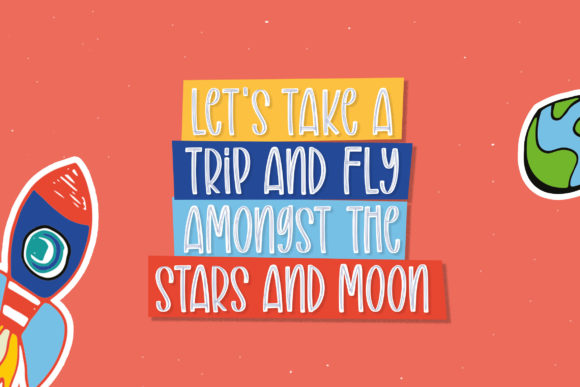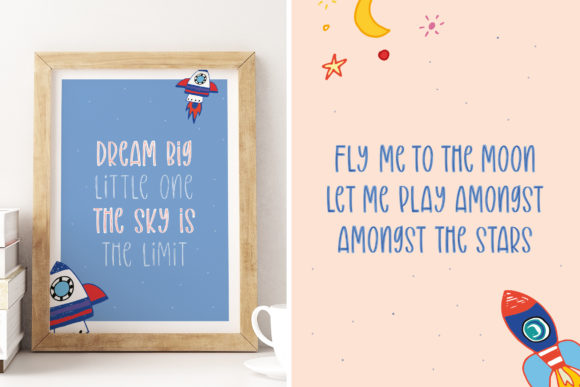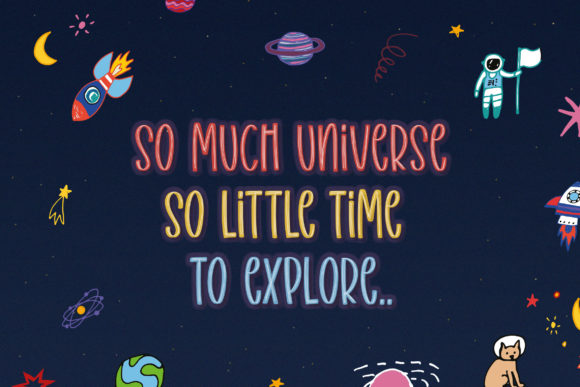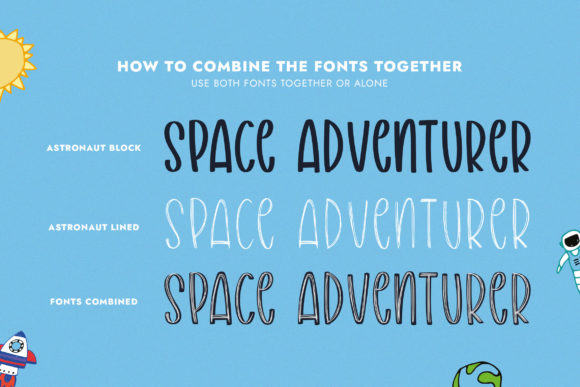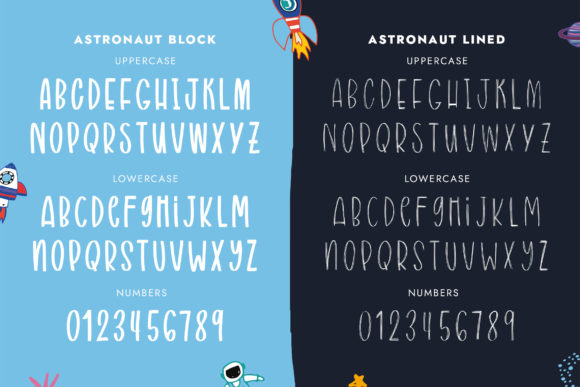
The Ultimate Display Font: Astronaut Trio
- ✨ Unique and quirky design: Astronaut Trio has a distinct personality that adds a playful touch to any project.
- ✅ Highly versatile: This font can be used for a wide range of projects, from craft projects to professional designs.
- 💡 Inspires creativity: The font’s fun and casual vibe encourages you to think outside the box and try new things.
While Astronaut Trio is an amazing font, there are a few things to keep in mind:
- ⚠️ Legibility at small sizes: Like many display fonts, Astronaut Trio can be tricky to read at very small sizes.
- 🤔 Limited use for body text: Due to its playful nature, this font is best suited for headings and titles, rather than large blocks of text.
The Story Behind Astronaut Trio
Astronaut Trio was designed with the intention of capturing the fun and adventurous spirit of space exploration. The designer, inspired by the early days of space travel, aimed to create a font that would evoke a sense of excitement and curiosity. The result is a font that’s both playful and versatile, perfect for a wide range of creative projects.
Q: What type of projects is Astronaut Trio best suited for?
A: Astronaut Trio is perfect for creative projects that require a fun and playful touch, such as craft projects, posters, and social media graphics.
Q: Is Astronaut Trio available in different weights or styles?
A: Yes, Astronaut Trio comes in various weights and styles, allowing you to experiment with different looks and feels in your designs.